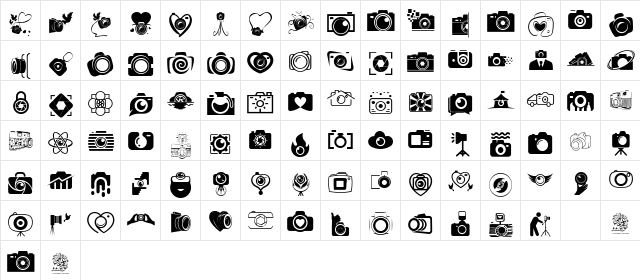
CAMERA - FOTOGRAAMI Regular
Design Context for CAMERA - FOTOGRAAMI Typeface
CAMERA - FOTOGRAAMI is a composed and adaptable typeface that performs quietly and consistently across a wide range of design contexts.